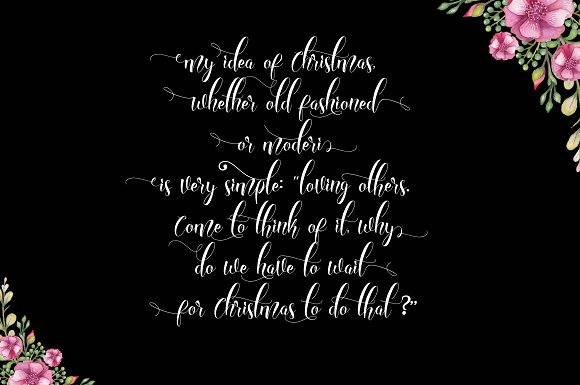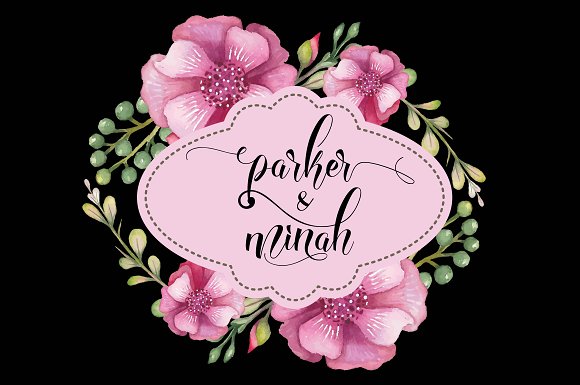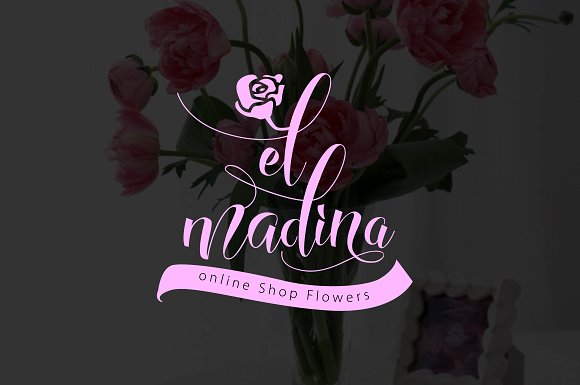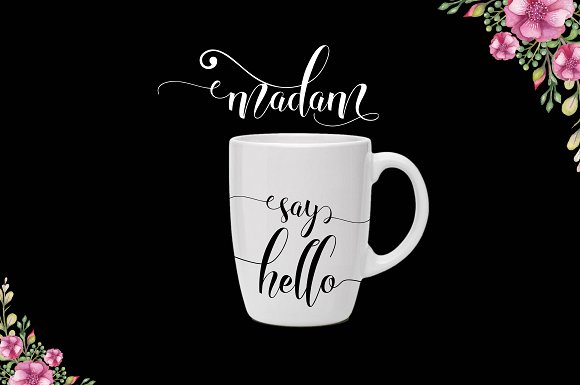
Introduction to Samitha Font
Samitha is a modern script font.
Key Features of Samitha Font
Why Choose Samitha Font?
Samitha Font offers exceptional quality and versatility, making it a valuable addition to your design toolkit. Whether you’re creating for personal projects or commercial use, Samitha Font delivers professional results.